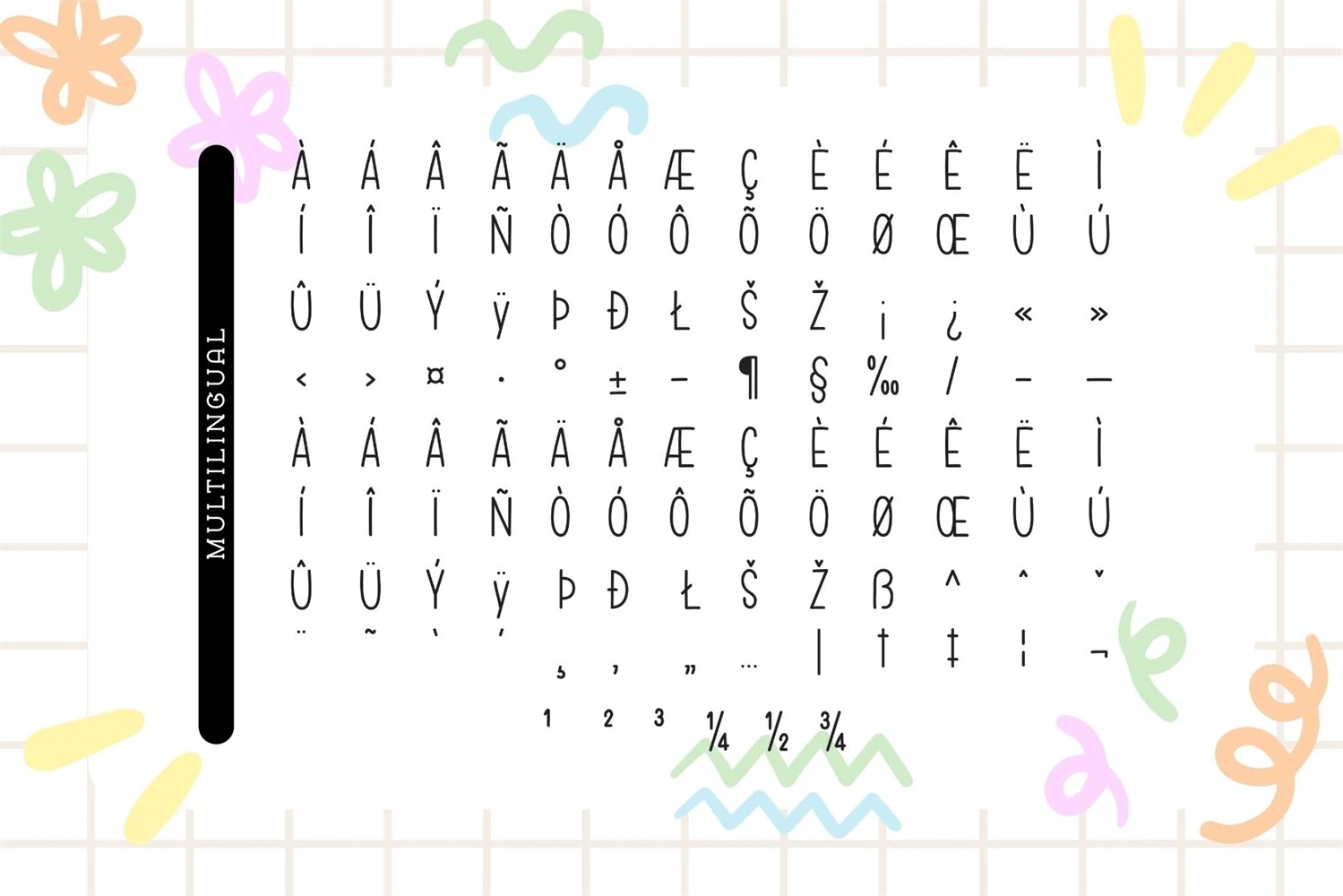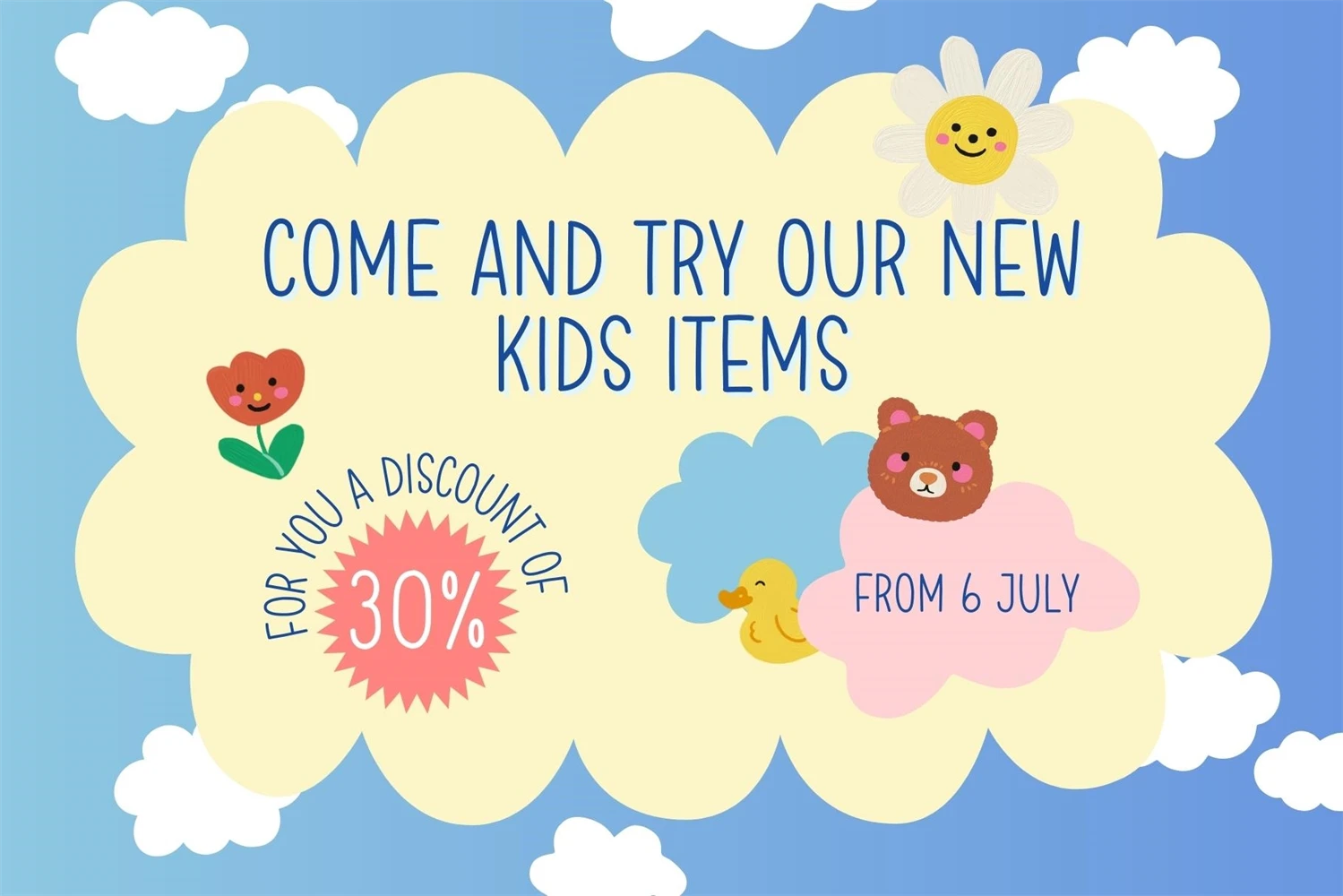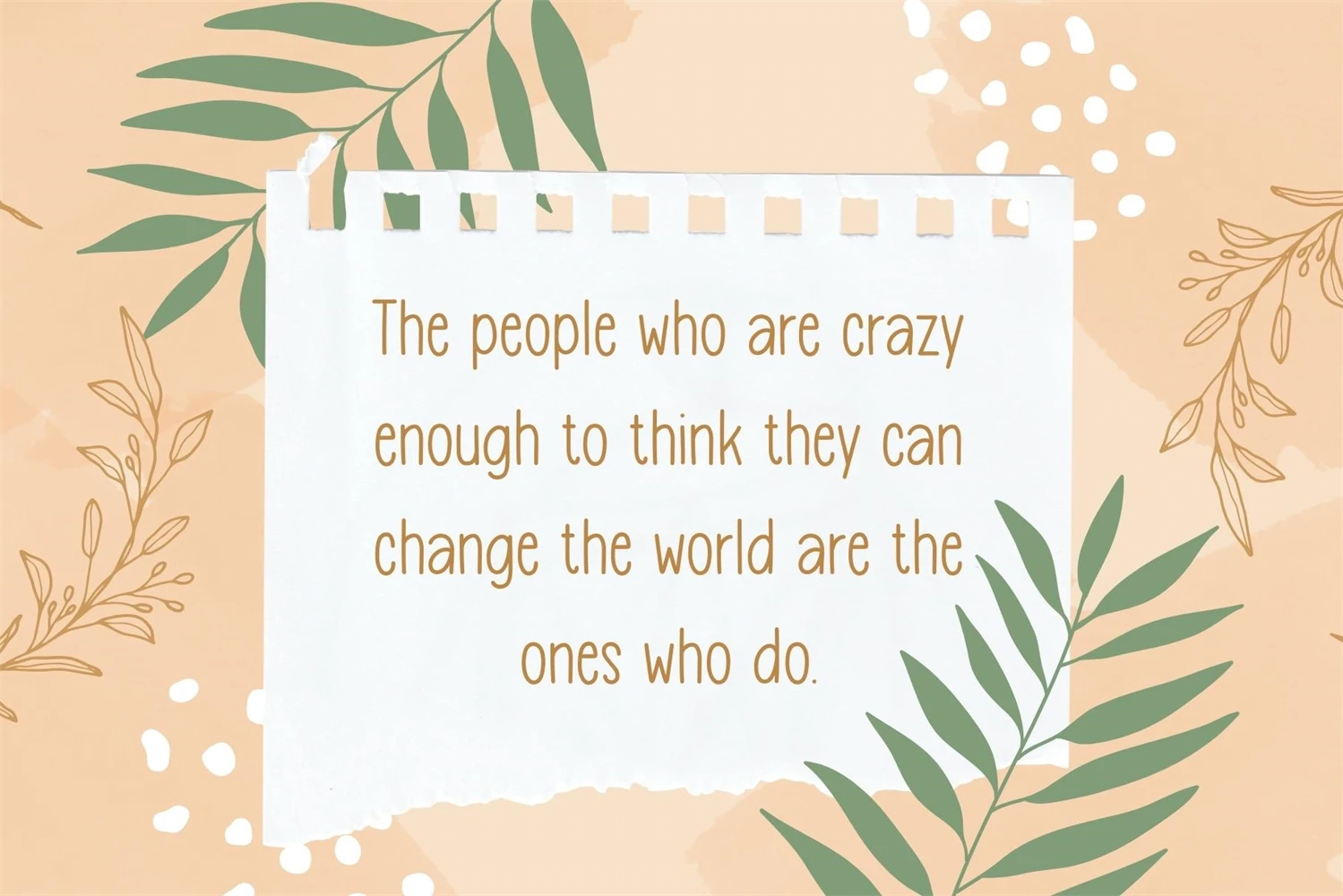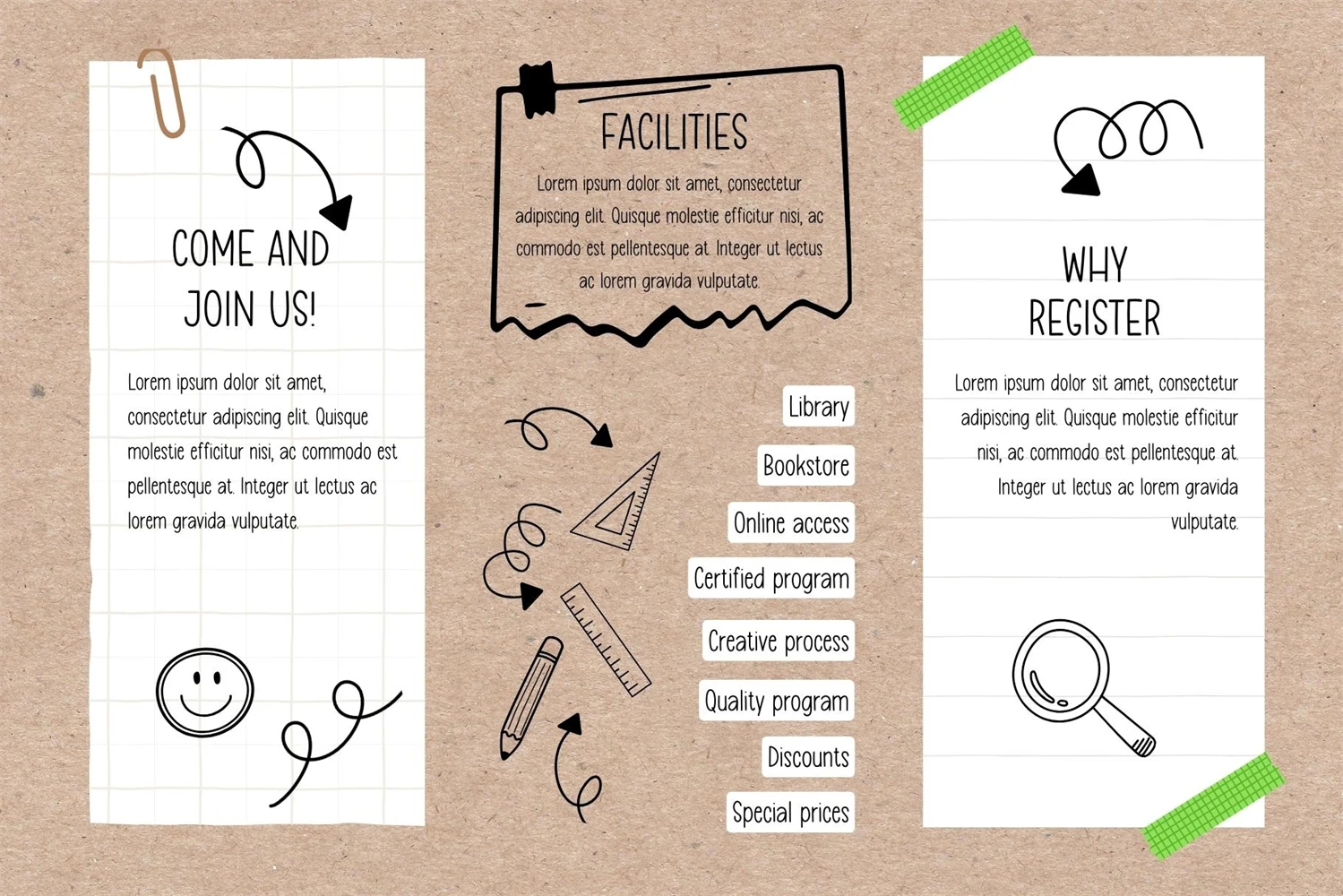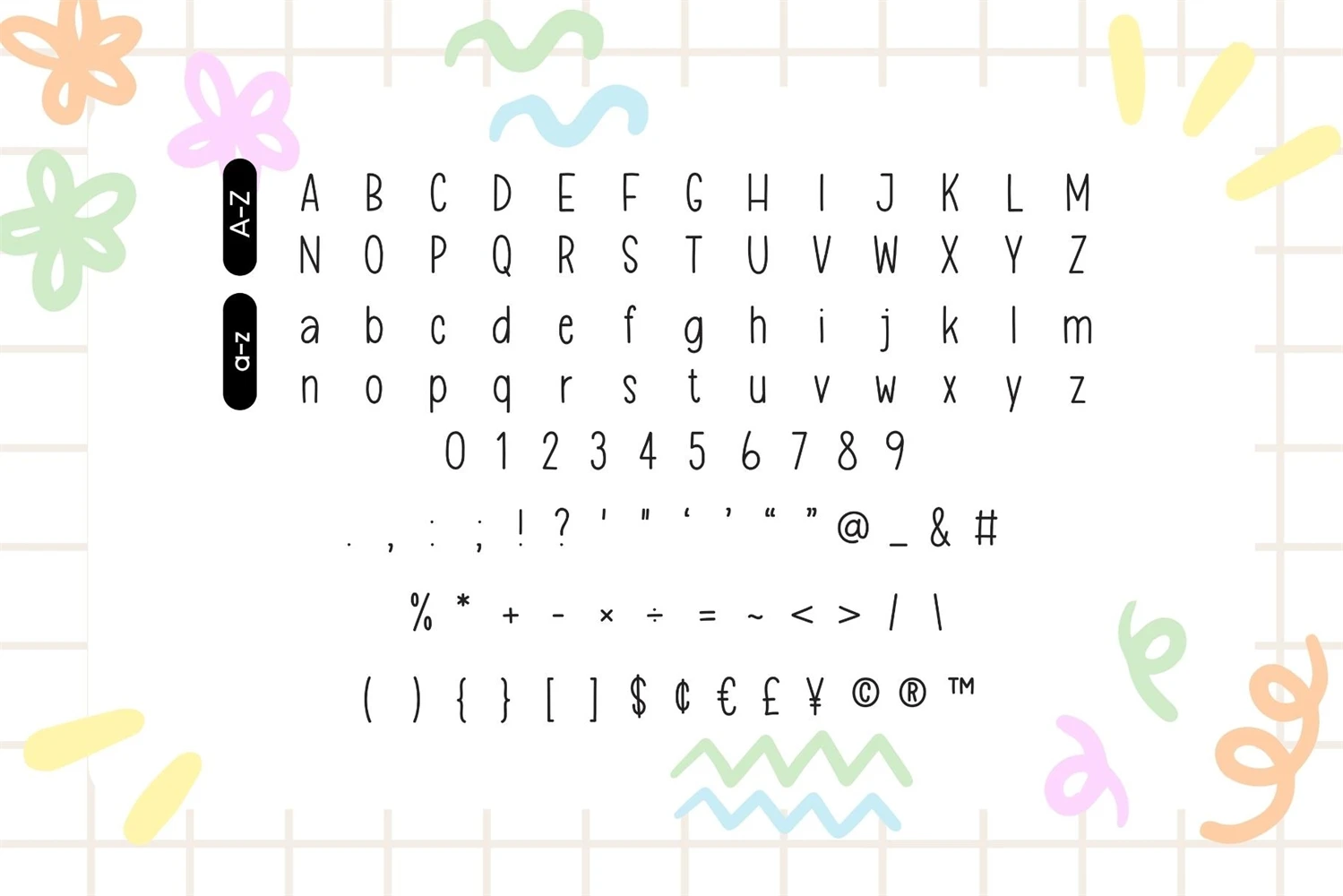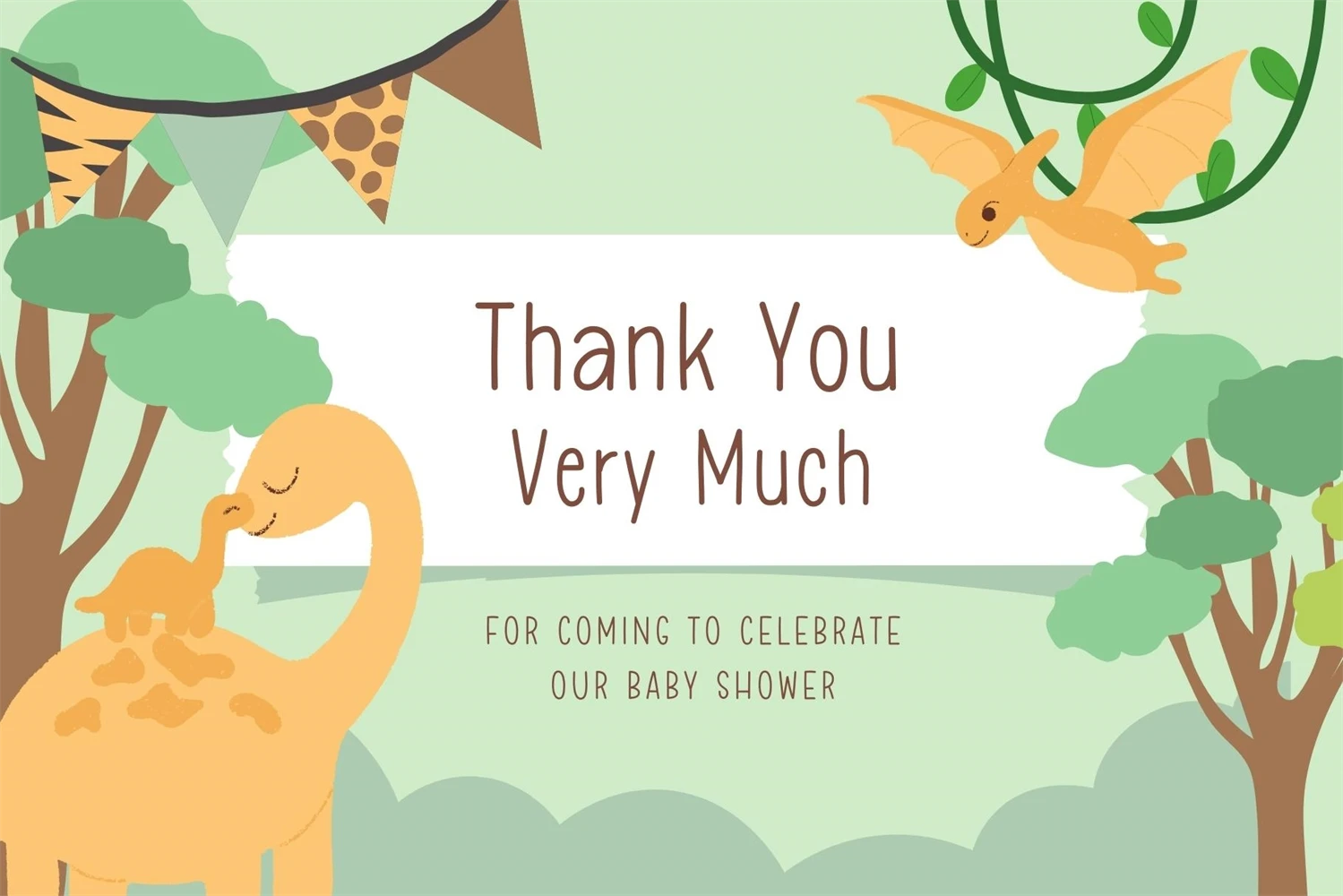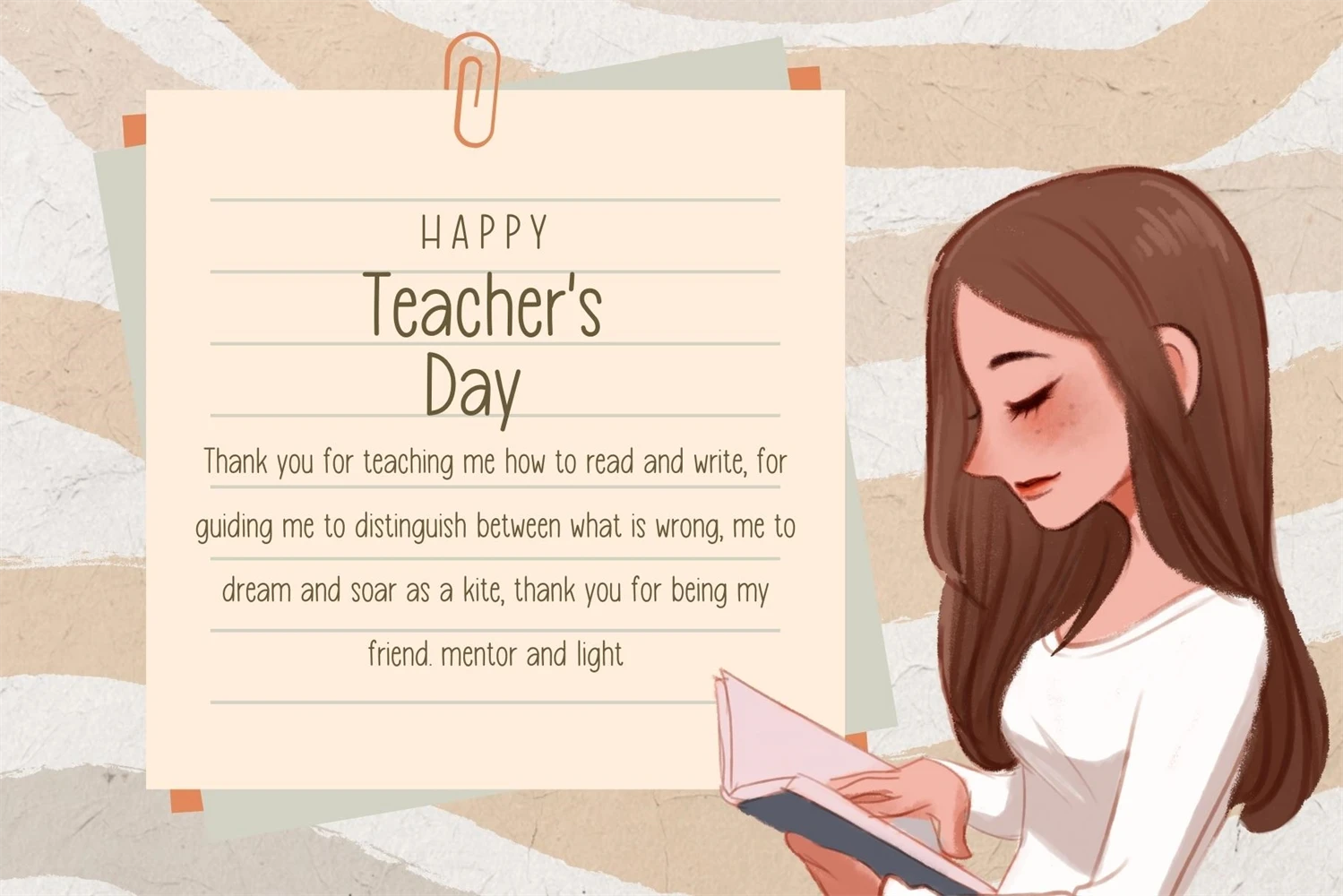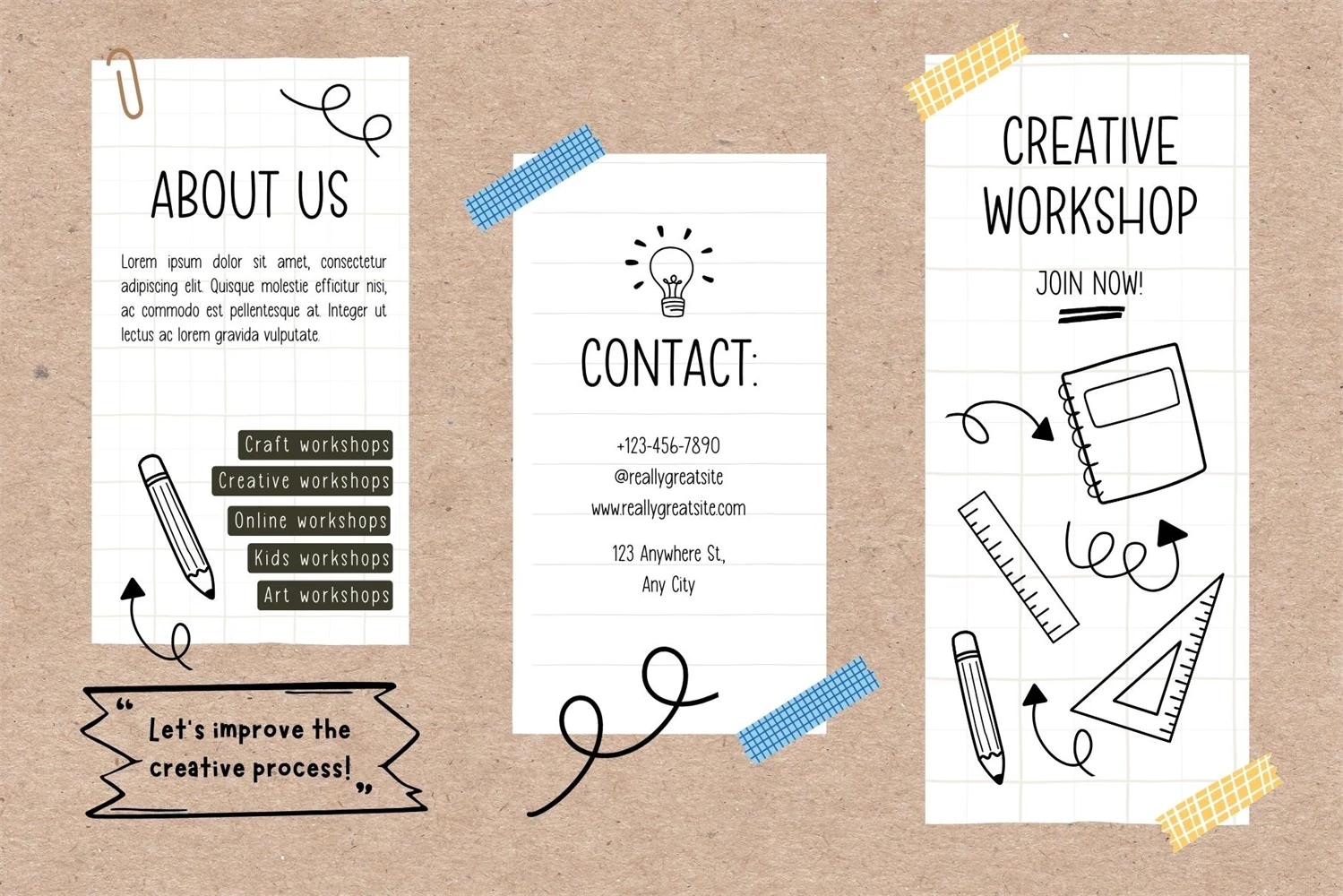
Fox Realistic is your versatile companion, ready to enhance a wide range of projects. Whether you're working on blog posts, branding materials, advertisements, invitations, greeting cards, planners, photo albums, decorations, or anything else your creative heart desires, this font has you covered. Infuse your projects with personality and charm. Try Fox Realistic today and experience the magic of handwritten simplicity, sans serif style.